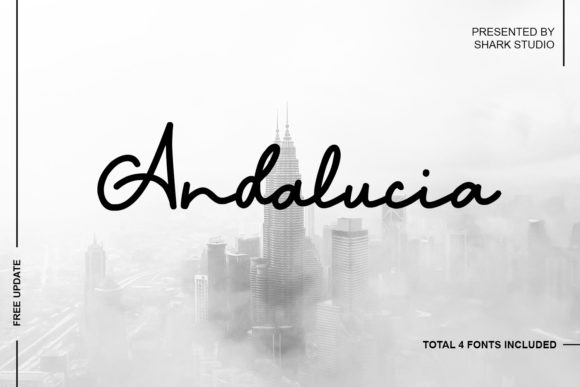
The Quest for the Perfect Font: Discovering Andalucia
I still remember the frustration of working on a client’s wedding invitation project, determined to find the perfect font that exuded elegance and sophistication. The design brief required a signature font with bold lines, and I scoured the internet for hours, testing font after font. That’s when I stumbled upon Andalucia, a stunning signature font that instantly caught my attention. Its bold lines and elegant appearance made it an instant favorite, and I’ve been hooked ever since.
Andalucia Font: A Comprehensive Review
What I Love About Andalucia ✨
- 💯 Elegant and sophisticated design, perfect for crafting projects that require a touch of luxury
- ✅ Bold lines that make a statement, ideal for headings and titles
- 🎨 Versatile and highly customizable, allowing for endless creative possibilities
- 👍 Excellent for use in invitations, branding, and marketing materials
While Andalucia is an exceptional font, there are a few minor quirks to be aware of:
- 🤔 Some users may find the font’s bold lines overwhelming for body text; it’s best suited for headings and titles
- ⚠️ Limited availability of stylistic alternates, which may restrict design flexibility
The Designer Inspiration Behind Andalucia
Andalucia is a font inspired by the rich cultural heritage of Andalusia, a region in southern Spain known for its stunning architecture, vibrant art scene, and elegant design. The font’s creator drew inspiration from the region’s Moorish and Gothic influences, blending bold lines with elegant curves to create a truly unique and sophisticated font.
Q: What is the best way to use Andalucia in my design project?
A: Andalucia is best used as a heading or title font, where its bold lines and elegant appearance can make a statement. You can also use it for body text, but be aware that its bold lines may be overwhelming for longer blocks of text.
Q: Is Andalucia a versatile font?
A: Yes, Andalucia is a highly versatile font that can be used for a wide range of design projects, from invitations and branding to marketing materials and packaging.
Q: Can I use Andalucia with other fonts?
A: Yes, Andalucia can be paired with other fonts to create a unique and visually appealing design. Experiment with different font combinations to find the perfect match for your project.